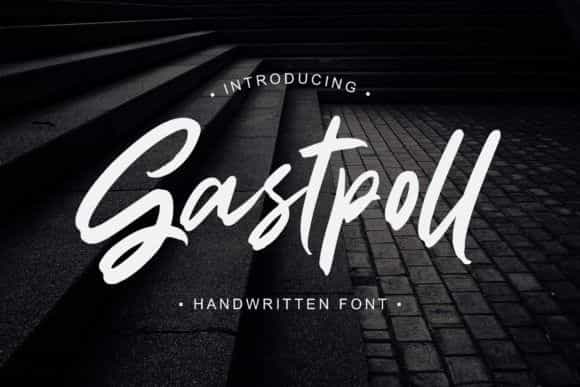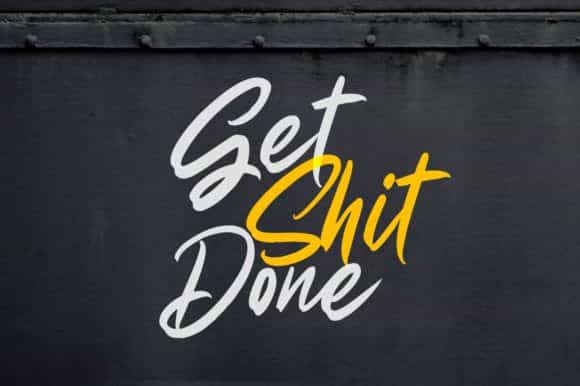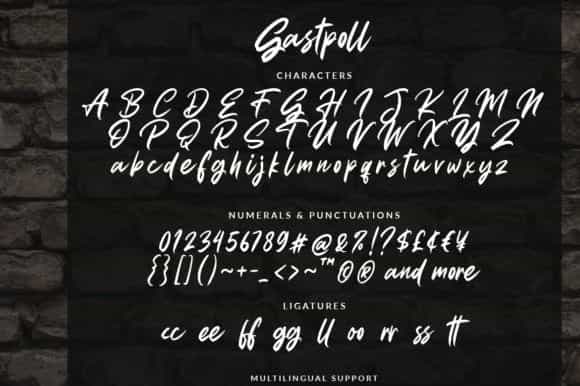
Gastpoll is a fun brush font that adds charm to invitations greeting cards, branding materials, quotes, posters and more. Make your designs pop with this cheerful font.